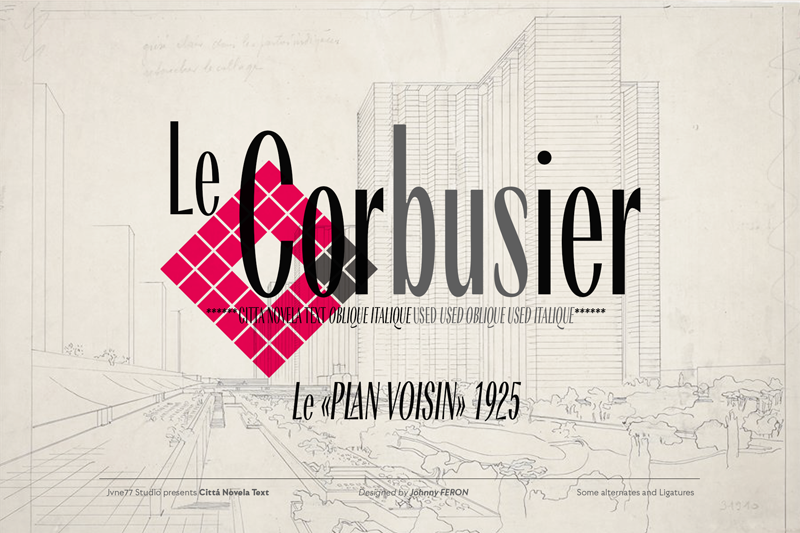
Citt� Novela is an upright typeface family inspired by vintage architecture from the mid 20's to the 60's. A classy and didonesque streamlined sans which will perfectly set in a poor line space for Titling and text. Multilingual, diacritics, ligatures and alternates for near 570 glyphes. The complete family set include: -�Citt� Novela Display (3 weights - Otf, Ttf, and Webfonts) -�Citt� Novela Display Outline (3 weights - Otf, Ttf, and Webfonts) -�Citt� Novela Text (3 weights - Otf, Ttf, and Webfonts) -�Citt� Novela Text Used (3 weights - Otf, Ttf, and Webfonts) |